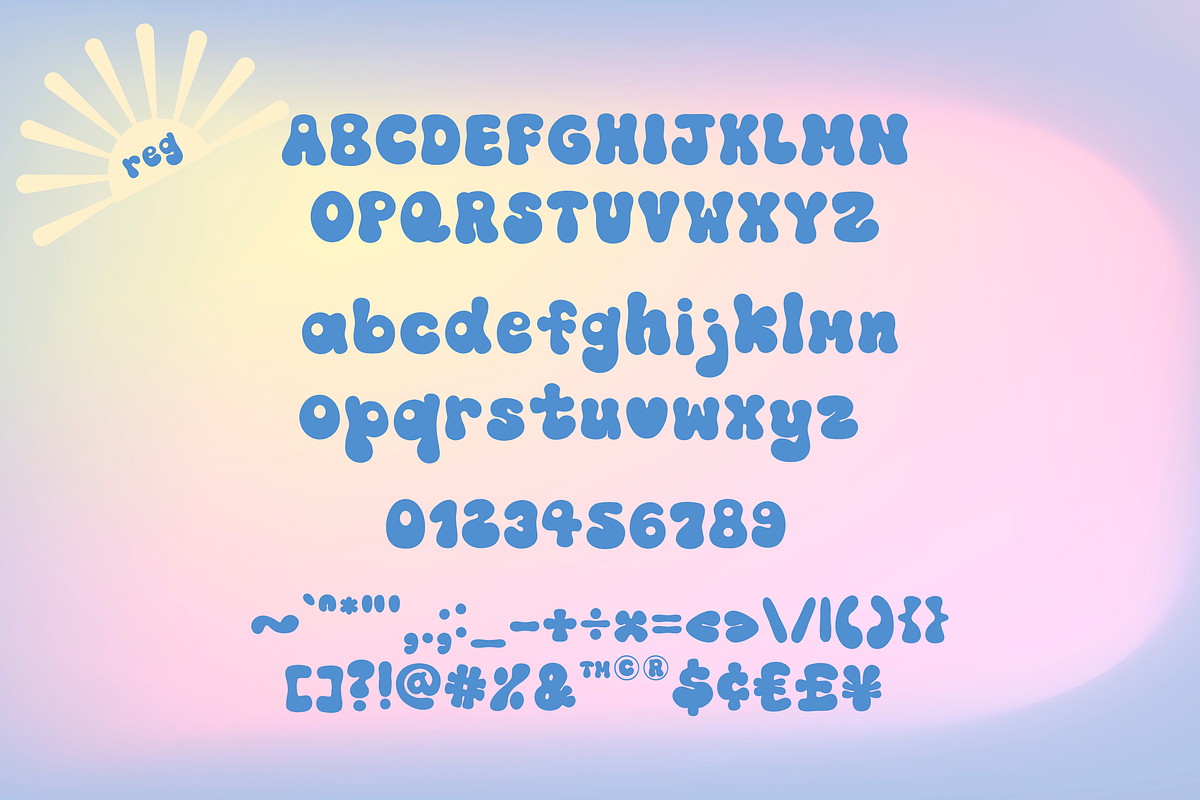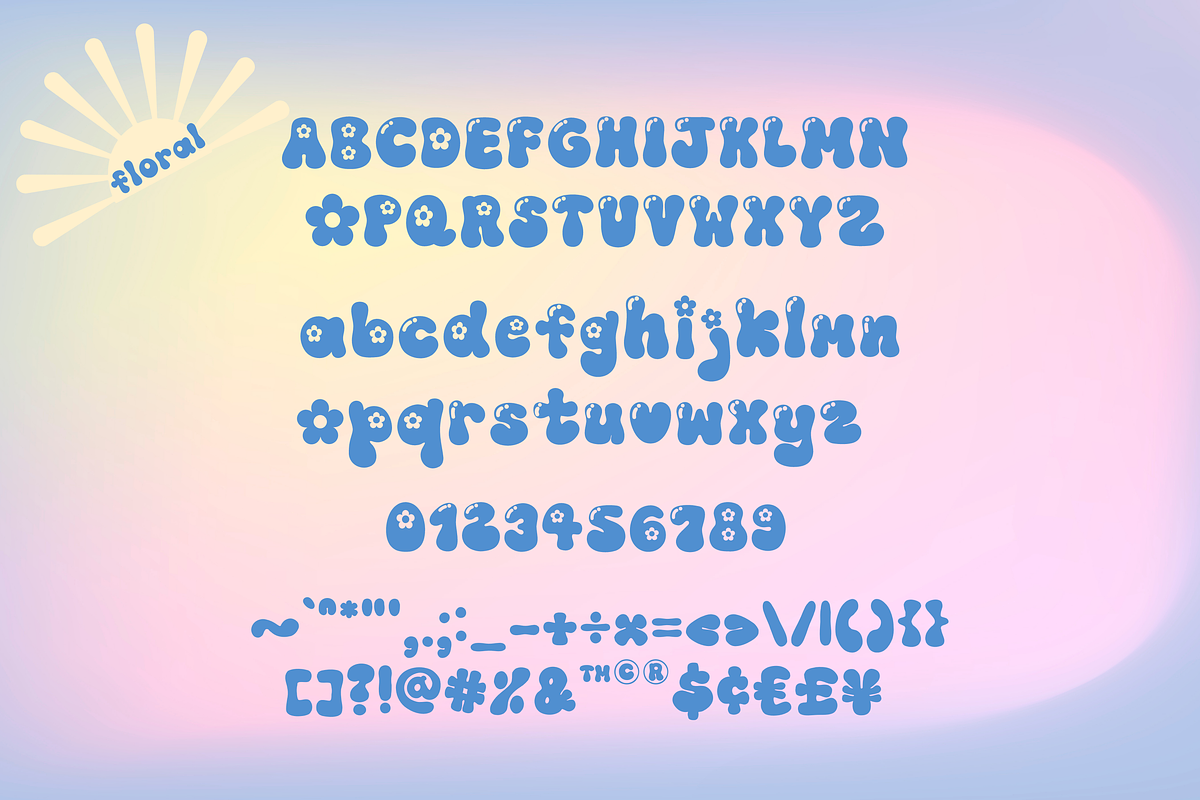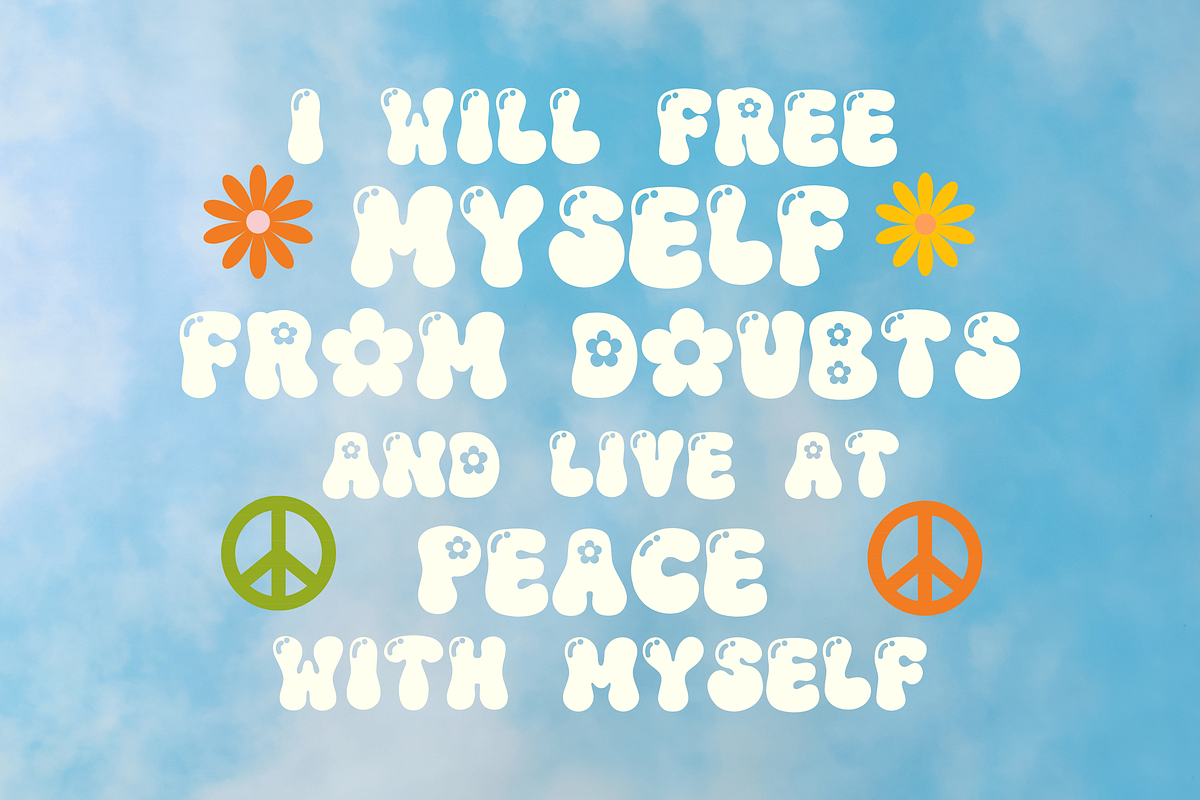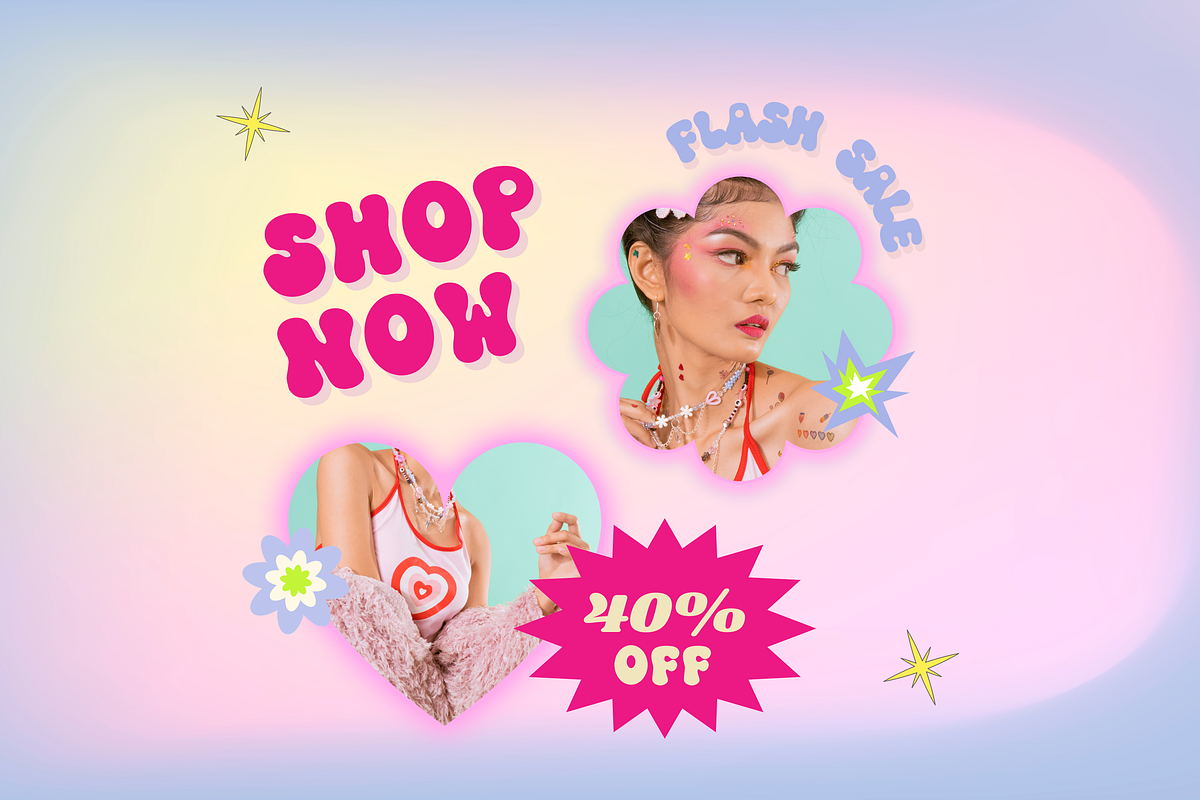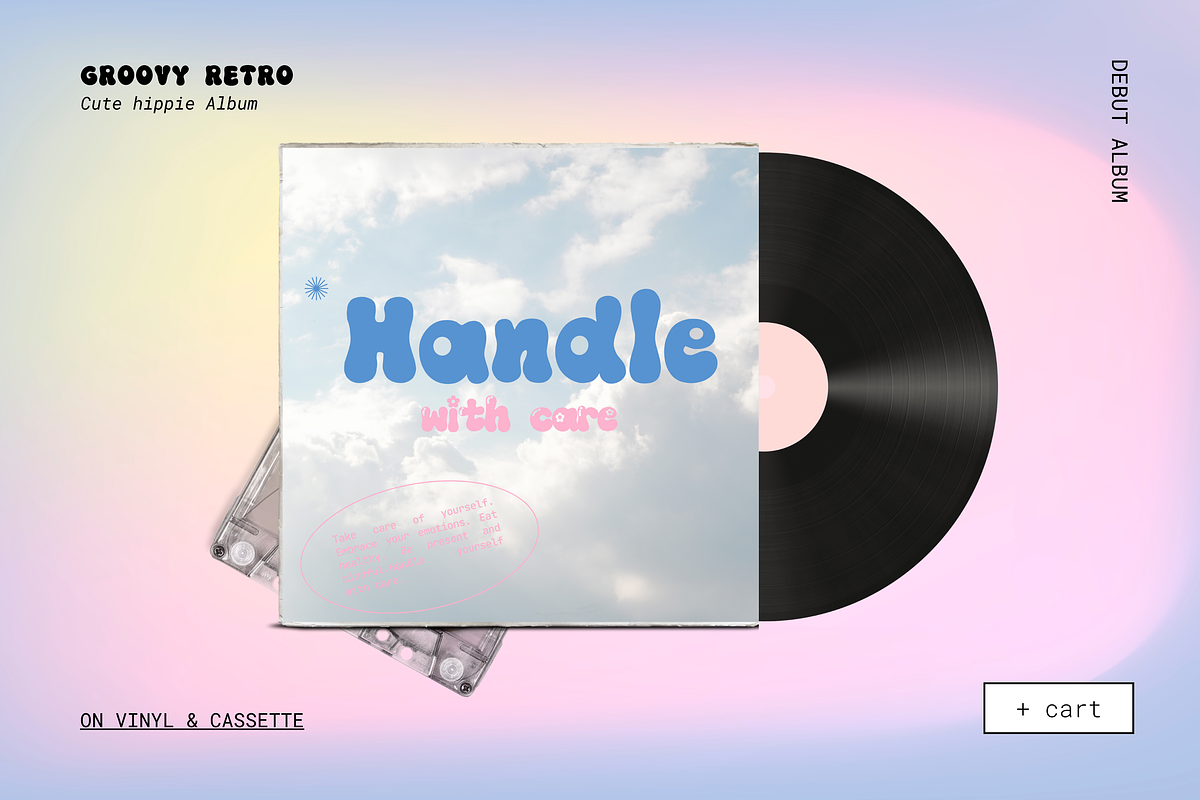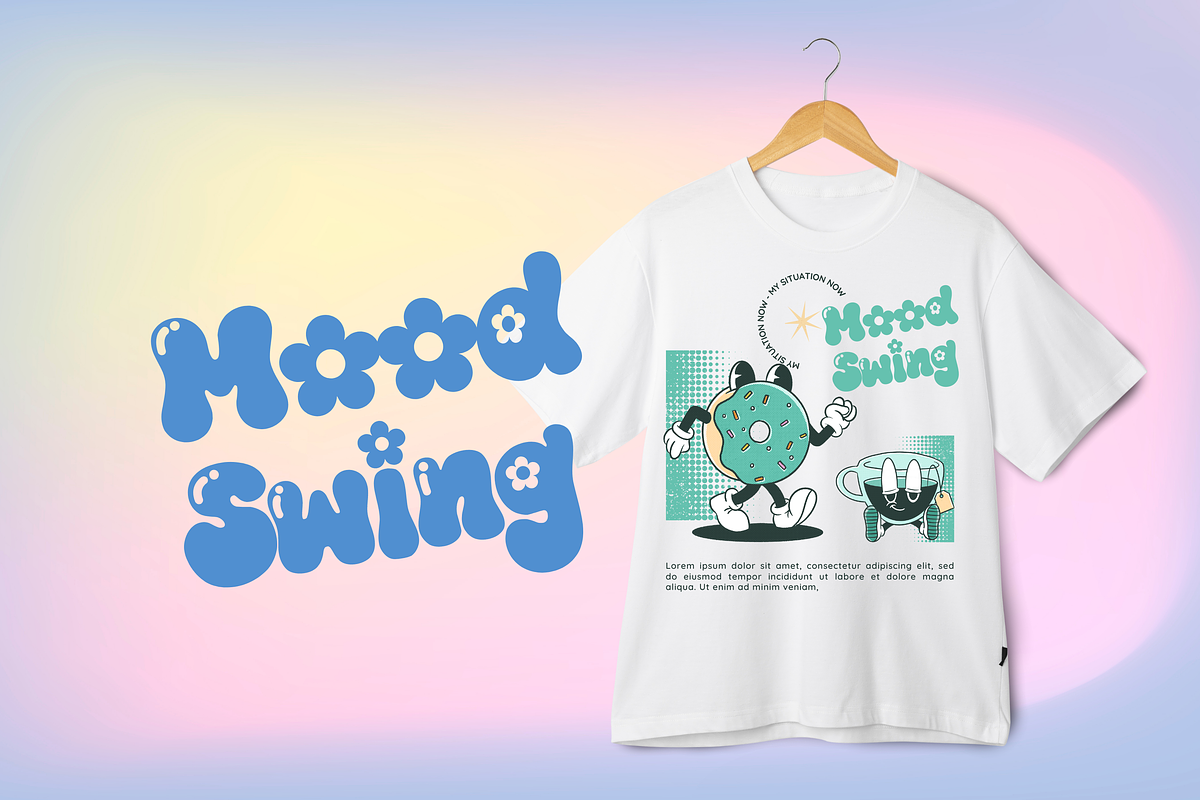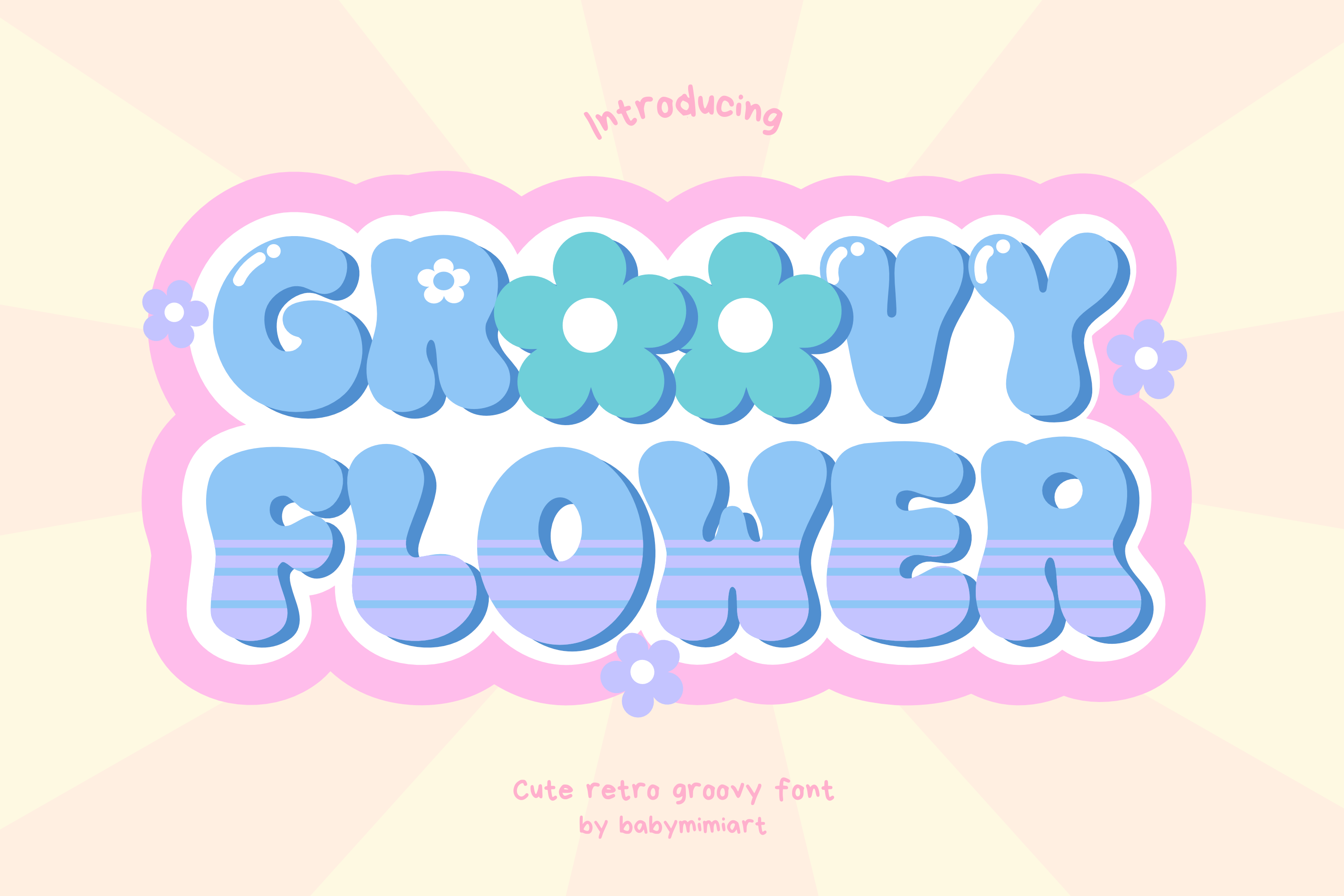
Groovy Flower Retro Font
Groovy Flower is a cute and groovy retro font that captures the playful charm of the '60s and '70s. With its whimsical curves and funky vibes, it adds a burst of nostalgic flower power to your projects. Perfect for vintage-inspired posters, retro branding, or any design in need of a groovy twist, this font infuses your creations with a vibrant and free-spirited energy from the past.